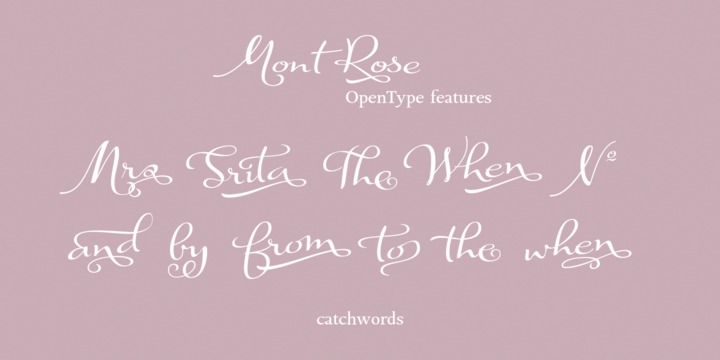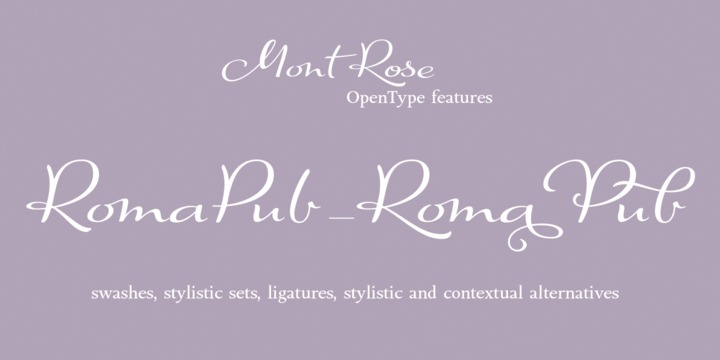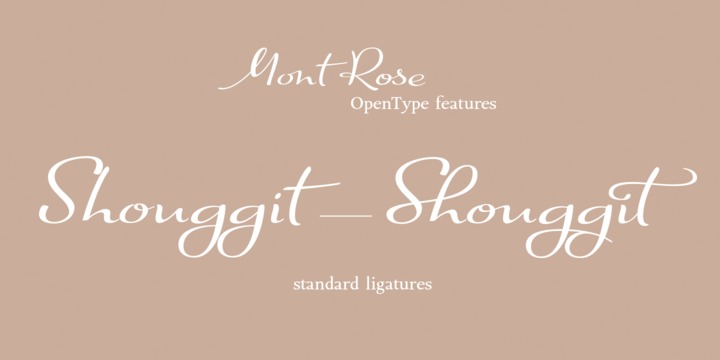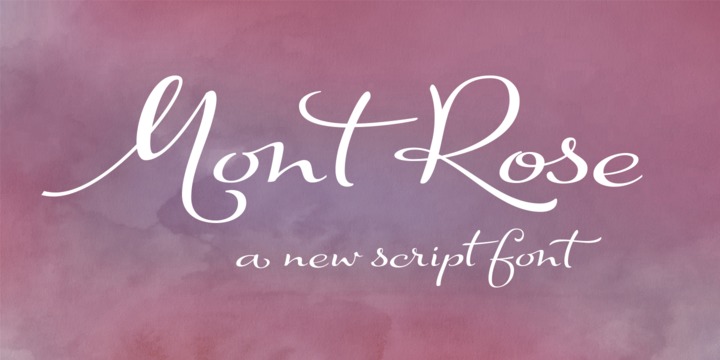
Rose fonts are based on examples published in the book Script Lettering written by M. Meijer in 1957. These kind of handmade lettering were served as a point of departure or inspiration for many other designers along the time.
These writings had flowing lines, elegant curves and flourishes, which gave him a lot of rhythm and unique personality.
Mont Rose is thin, feminine, friendly and sexy, each font contain 637 glyphs with many stylistic variations, swashes and ligatures in all its letters, and a set of interesting catchwords that you can mix and match to achieve a more interesting effect in your design project.
They support also, Central, Eastern and Western European languages. Mont Rose are very versatile fonts, ideal for high-end logos, magazines and book covers, fashion, headlines, cards, posters, websites, packaging.
Using these fonts you will achieve a very elegant and warm work.